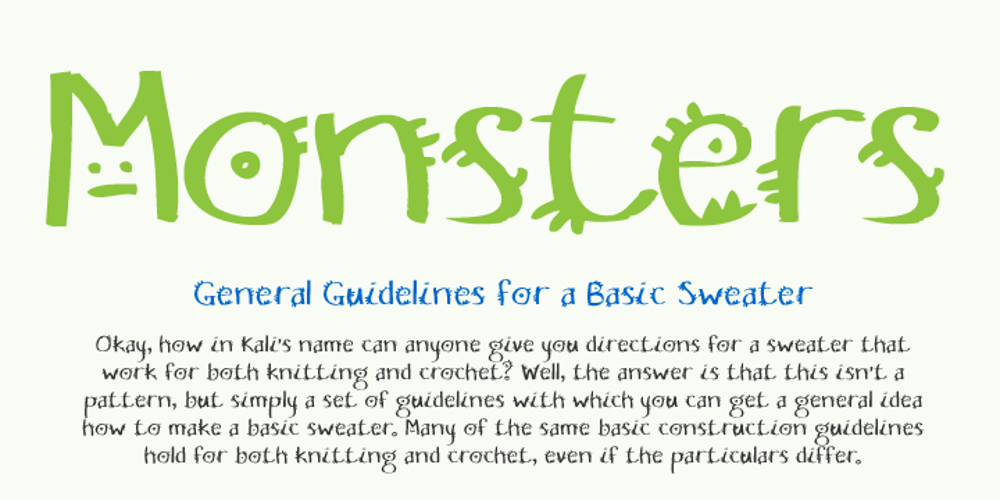
RB Monsters Font Family was designed by Ivan RockBee Vasiliev and published by RockBee. RB Monsters contains 1 styles and family package options. This typeface was drawn to create short headlines (quickly) for one of my projects (a set of illustrations featuring The Evil Rat, imagined character). Each character (here I mean “glyph”) has it’s own personality, mostly evil one (jokingly) ‚Äî that is why the font is called “The Monsters”. The font was drawn on paper, then scanned and traced. It has both Latin and Cyrillic sets, since it was used with both. Monsters are good for short notes of comic or ironic style.